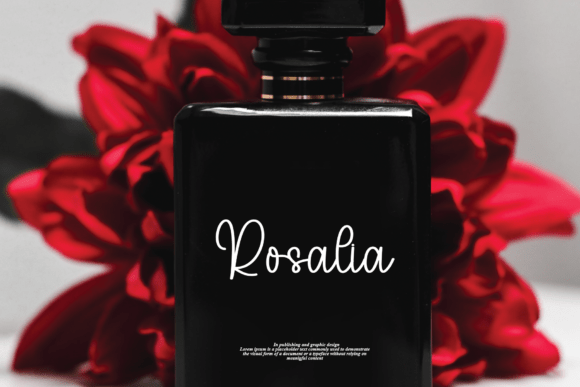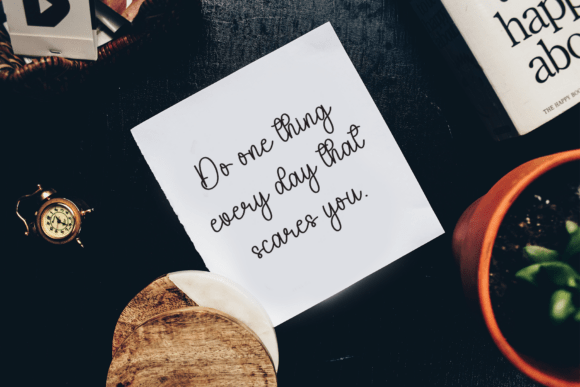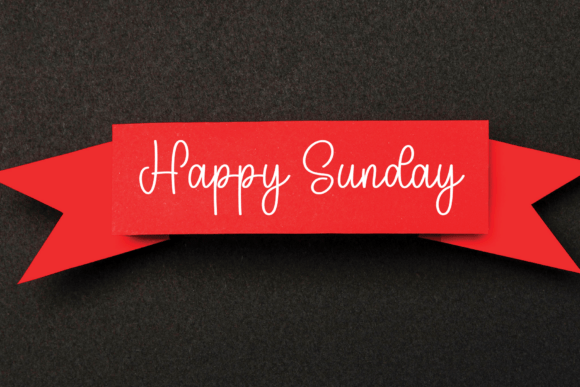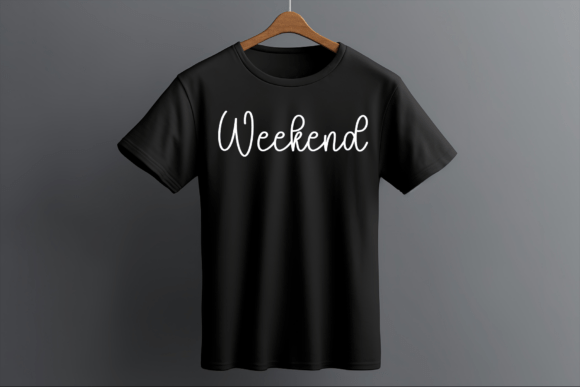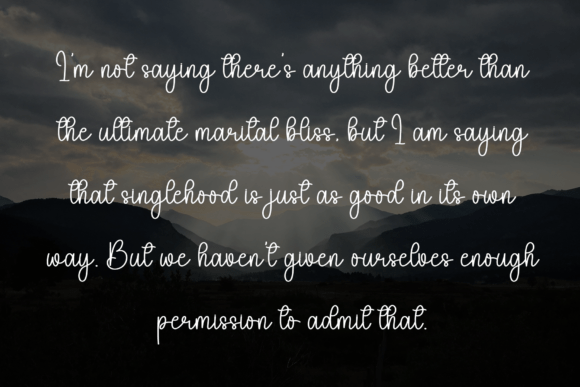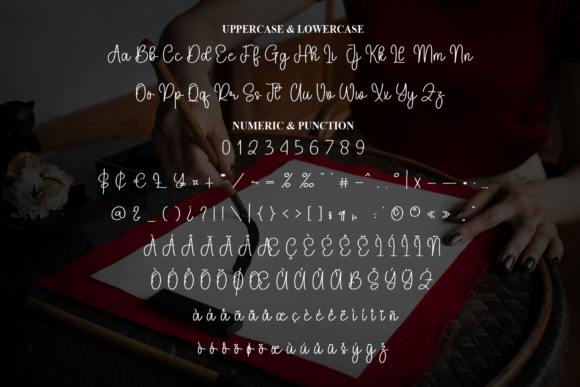
The Grandma Calligraphy Font: Elevating Designs with Elegance and Flair
I still remember the design project that led me to discover the Grandma Calligraphy font. I was working on a custom wedding invitation for a client who wanted something elegant, yet modern and playful. As I scrolled through font libraries, I stumbled upon this beautiful script font that seemed to capture the essence of hand-painted calligraphy with a contemporary twist. It was love at first sight! 💕
- ✨ Fluid brush strokes and dynamic curves that give designs a vibrant, hand-painted feel
- ✅ Exquisite letterforms that exude artistic flair and sophistication
- ✅ Highly versatile and adaptable for various design projects, from logos to social media graphics
- ✅ Easy to read and understand, even in smaller font sizes
Small Quirks and Limitations ⚠️
- ⚠️ Some users might find the font a bit challenging to pair with other fonts, due to its strong personality
- 🤔 Limited availability of certain characters or glyphs, which might require additional design workarounds
The Designer Inspiration Behind Grandma Calligraphy
Grandma Calligraphy was inspired by the beautiful, hand-painted calligraphy of traditional art. The font’s creator aimed to capture the essence of this timeless art form and infuse it with a modern, contemporary twist. The result is a stylish, elegant font that exudes artistic flair and sophistication.
Q: What makes Grandma Calligraphy suitable for logos and branding?
A: Grandma Calligraphy is an excellent choice for logos and branding due to its unique, artistic letterforms and elegant feel. It can help create a memorable, sophisticated brand identity that stands out from the competition.
Q: Is Grandma Calligraphy easy to read?
A: Yes, Grandma Calligraphy is designed to be highly legible, even in smaller font sizes. Its clear, elegant letterforms make it an excellent choice for designs that require both style and readability.